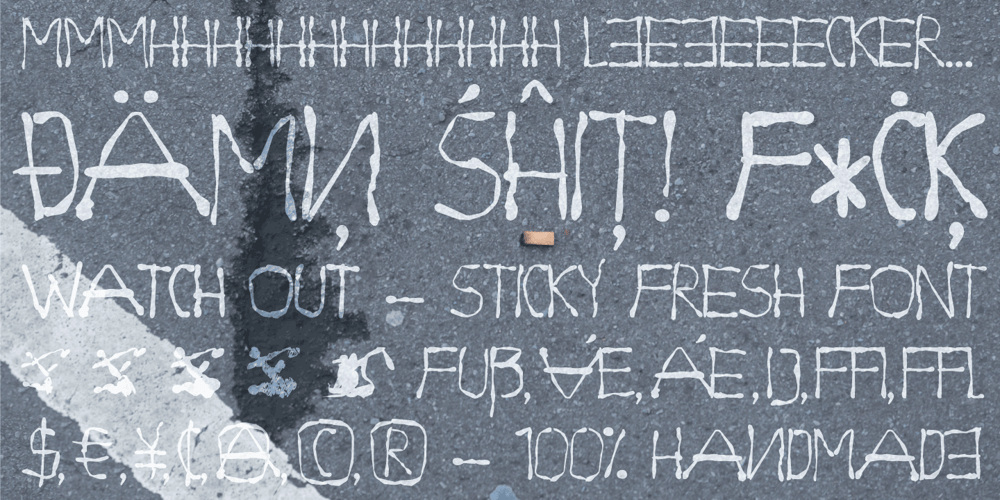
Dirty Bubble Gum Grunge Font Family was designed by Manuel Viergutz and published by TypoGraphicDesign. Dirty Bubble Gum Grunge contains 3 styles and family package options. The character of the rough, rugged and raw handmade typeface has a very unique sticky atmosphere. Letters lovingly decorated with chewing gum. Warmth, love, handmade. For support of human warmth. CONCEPT/ CHARACTERISTICS Experimental analog handwritten style. Handwritten in ink in a conventional roll-on deodorant. The dirty, grimmy Grunge-Look and the sloppy, rough Handwritten-Look script character, gives the typeface a high recognition value and uniqueness. The motto is handmade, rough & experimental. APPLICATION AREA The rough, ink-like, handwritten look of the handmade font „dirty deo hand ink“ would look good at logos, display size for poster, flyer, comics and graphic novel lettering, headlines in magazines or websites, packaging, music covers or webbanner etc. TECHNICAL SPECIFICATIONS Headline Font | Display Font | Raw Trash Script Font „dirty deo hand ink“ OpenType Font with & 282 glyphs & 1 style (regular). Symbols and ligatures (with accents & €)